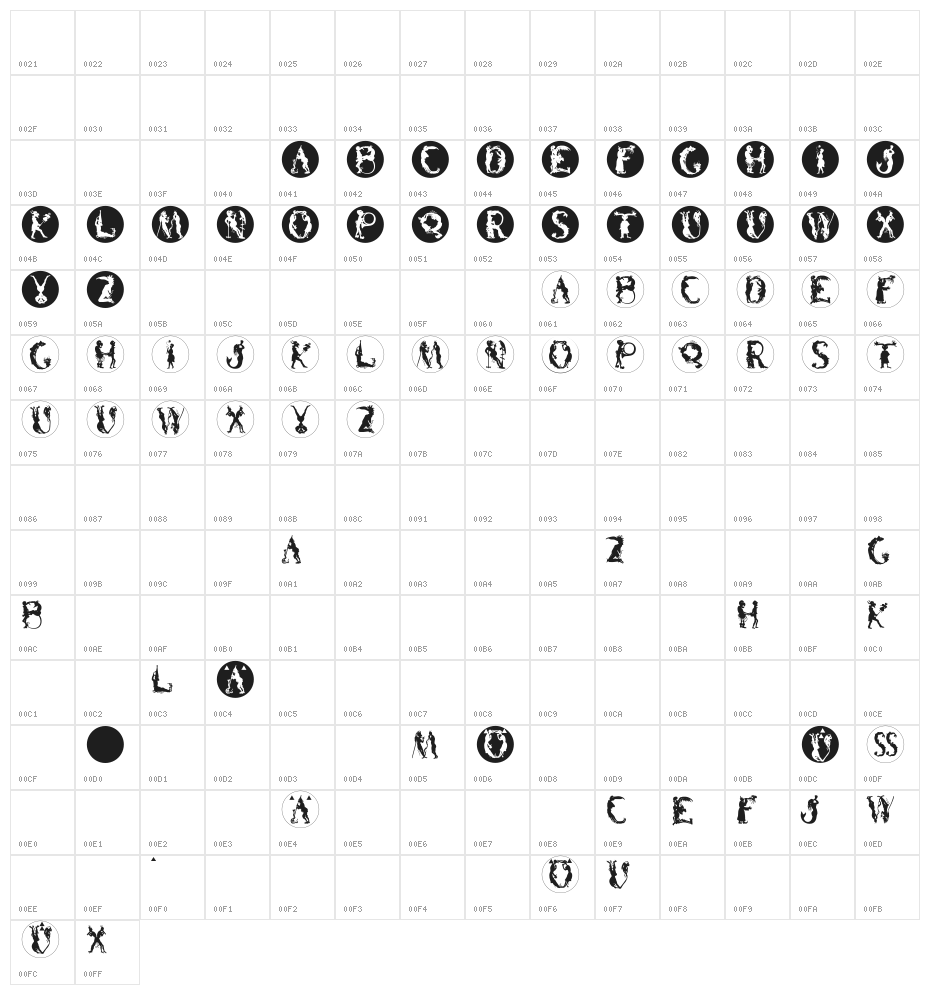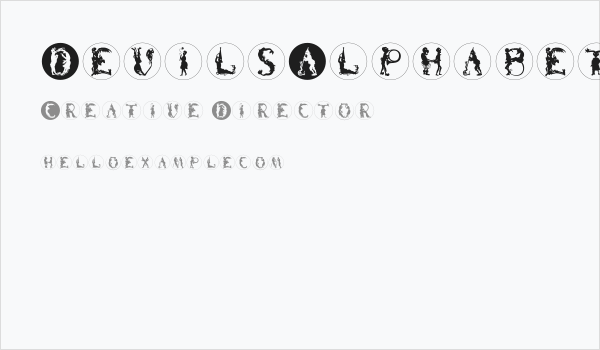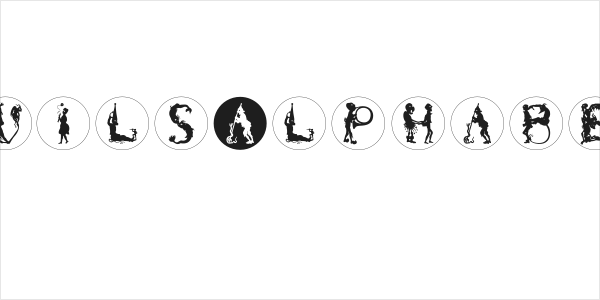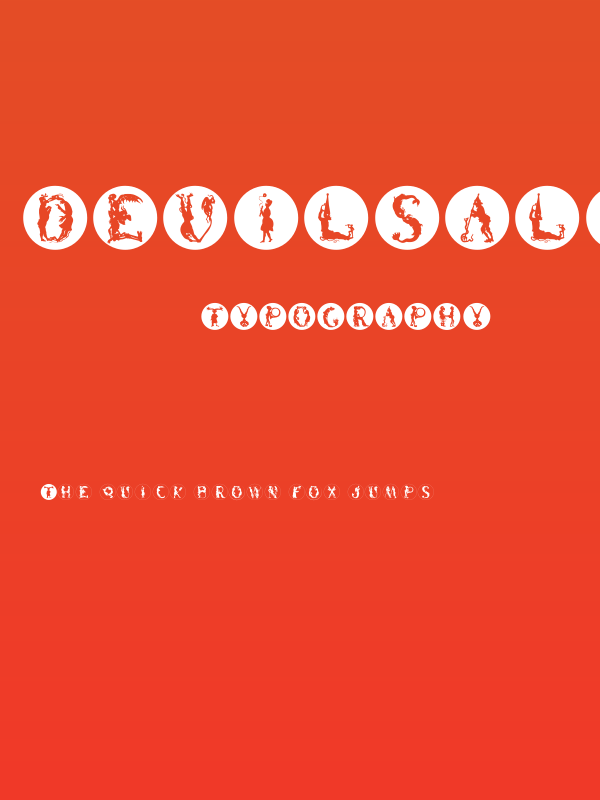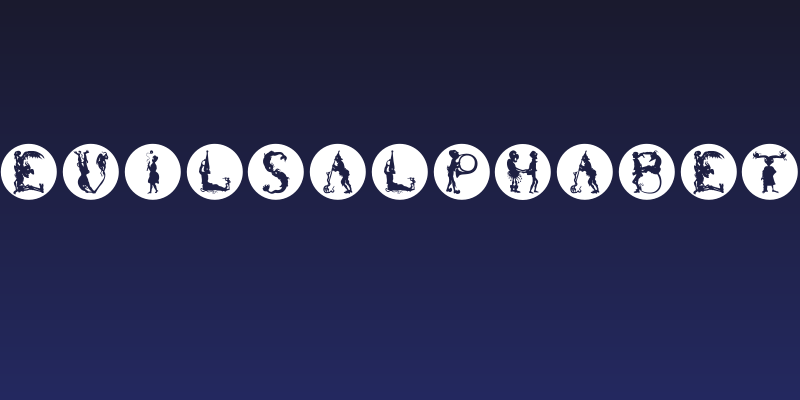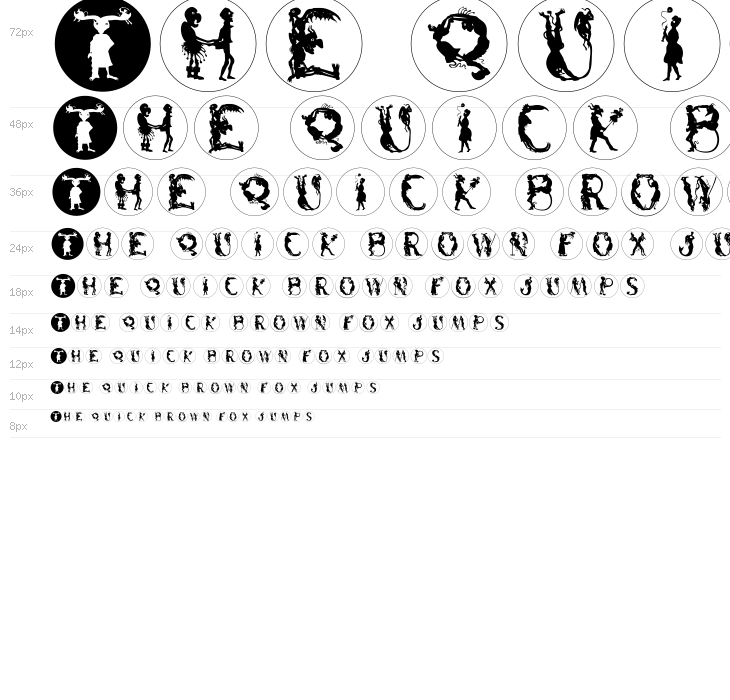
DevilsAlphabets Font
DevilsAlphabets Description
This font features a unique and eerie design, with each letter crafted to resemble a devilish figure or creature. The characters are encased in circular backgrounds, alternating between black and white, which enhances their striking appearance. The intricate details within each letter give the font a highly decorative and thematic style, perfect for projects that require a touch of the macabre or supernatural. The font's playful yet sinister aesthetic makes it stand out, capturing attention with its bold and imaginative design.
| Use Case | Headlines, Posters, Thematic Designs |
| Proposed Projects | Ideal for Halloween-themed designs, horror movie posters, spooky invitations, or any project needing a supernatural touch. |